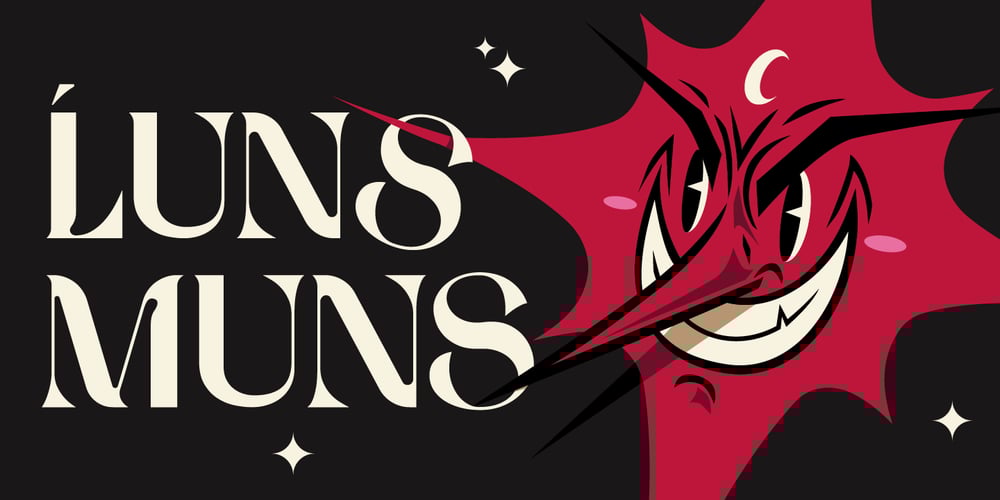
SK Luns Muns Font Family was designed by Anton Fros and published by Shriftovik. SK Luns Muns contains 1 styles and family package options. SK Luns Muns is a modern decorative font inspired by the animation of the 30’s of the XX century. The font combines current forms and the spirit of the Art Deco era with its elegant forms. The font contains many ligatures, which is perfect for design work. The SK Luns Muns font also supports extended Latin and Cyrillic, and also uppercase and lowercase sets.